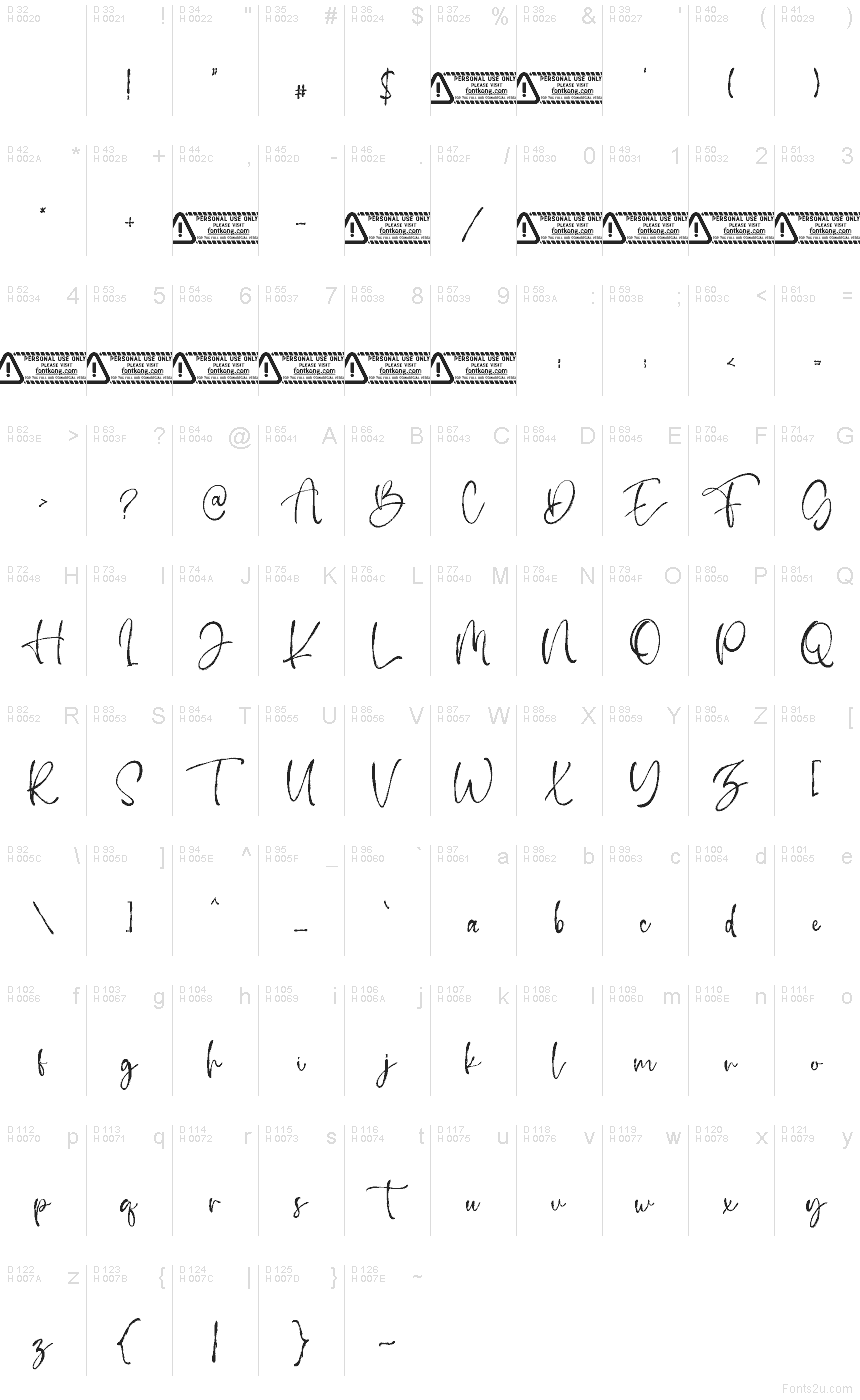
Jefferson font is an elegant and flowing handwritten font with a handcrafted feel by Kong Font. The contemporary script carries an artistic flair and expressive strokes, which are visible in its rounded gentle stems, curvy glyphs, and smooth transitions. Its smoothly brushed down letters on the baseline give it a relaxed natural feel that’ll instantly make readers comfortable.
Use the free handwritten font to pick up viewers’ attention to posters, quotes designs, cards, greeting cards, apparel designs like T-shirts and hoodies, ads titles on social media posts or magazines cover pages etc. Various branding packaging projects like food packaging and more can also benefit from it!